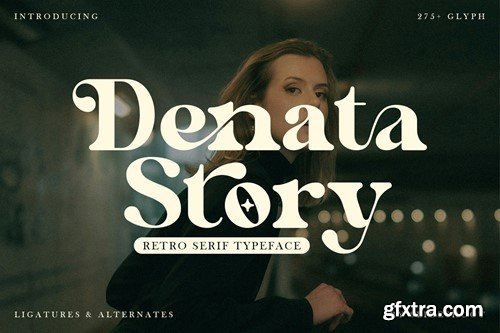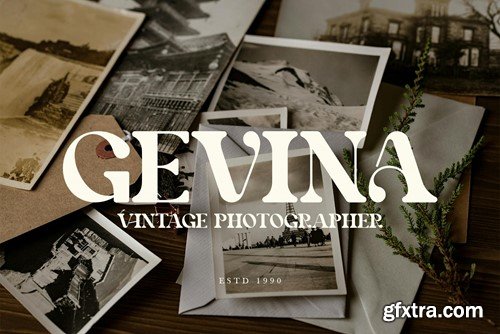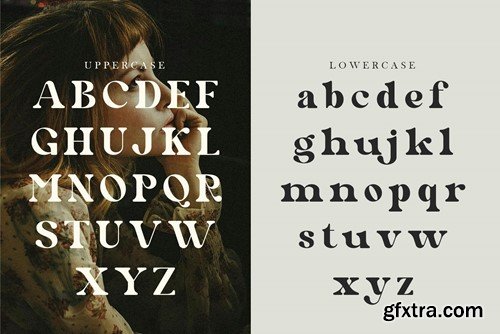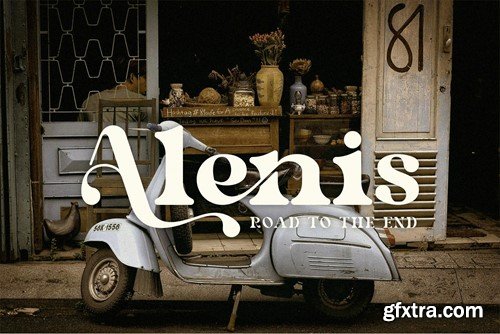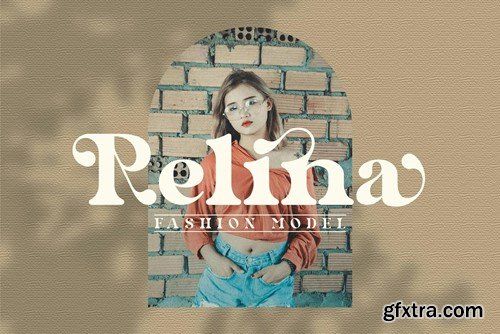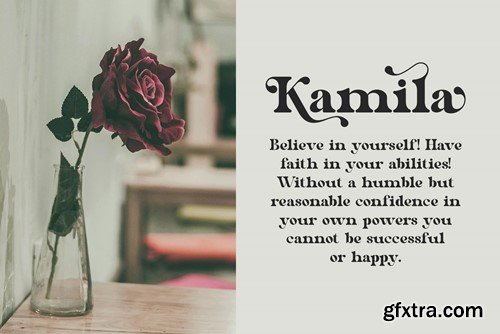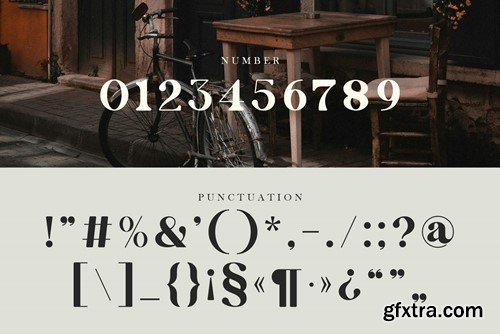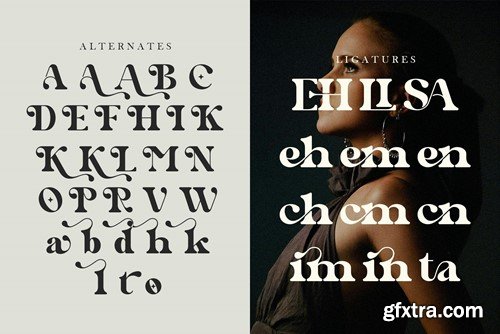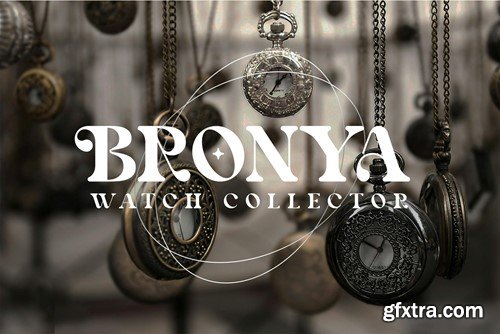
Denata Story - Retro Serif Font XJATCHY
Denata Story - Retro Serif Font
Denata Story Retro Serif is a balanced, smooth, elegant and stylish serif font. He has a beautiful character. It fits perfectly with invitation card designs, company logos, movie titles, movie names, business cards, book titles, brand names and various other designs. Denata Story Retro Serif is a subtle serif font that exudes sophistication and elegance. Its stylish alternations and ligatures make this font the perfect partner for any project.
FEATURE :
• Ligature
• Uppercase and lowercase
• Numbering and Punctuation